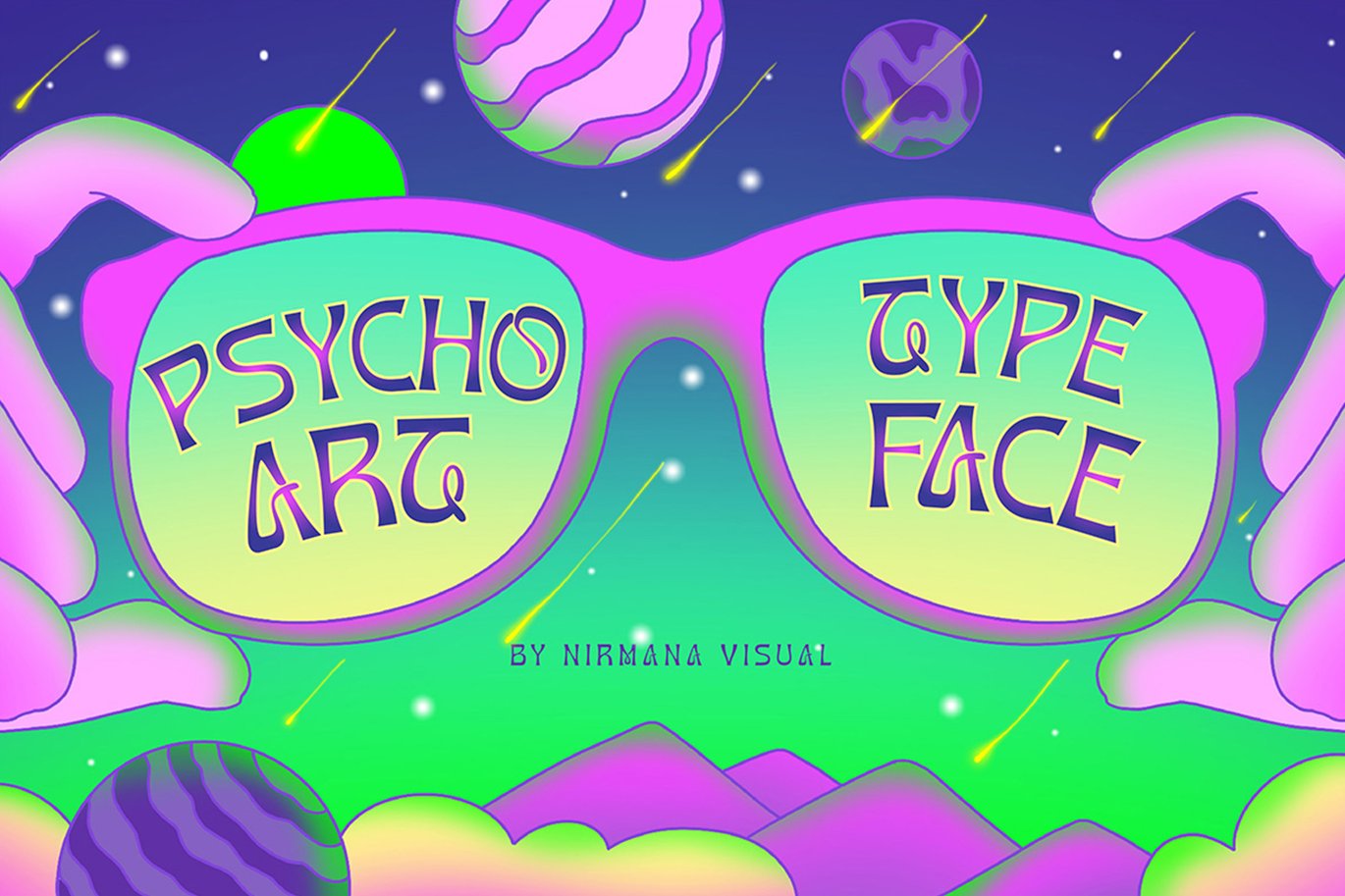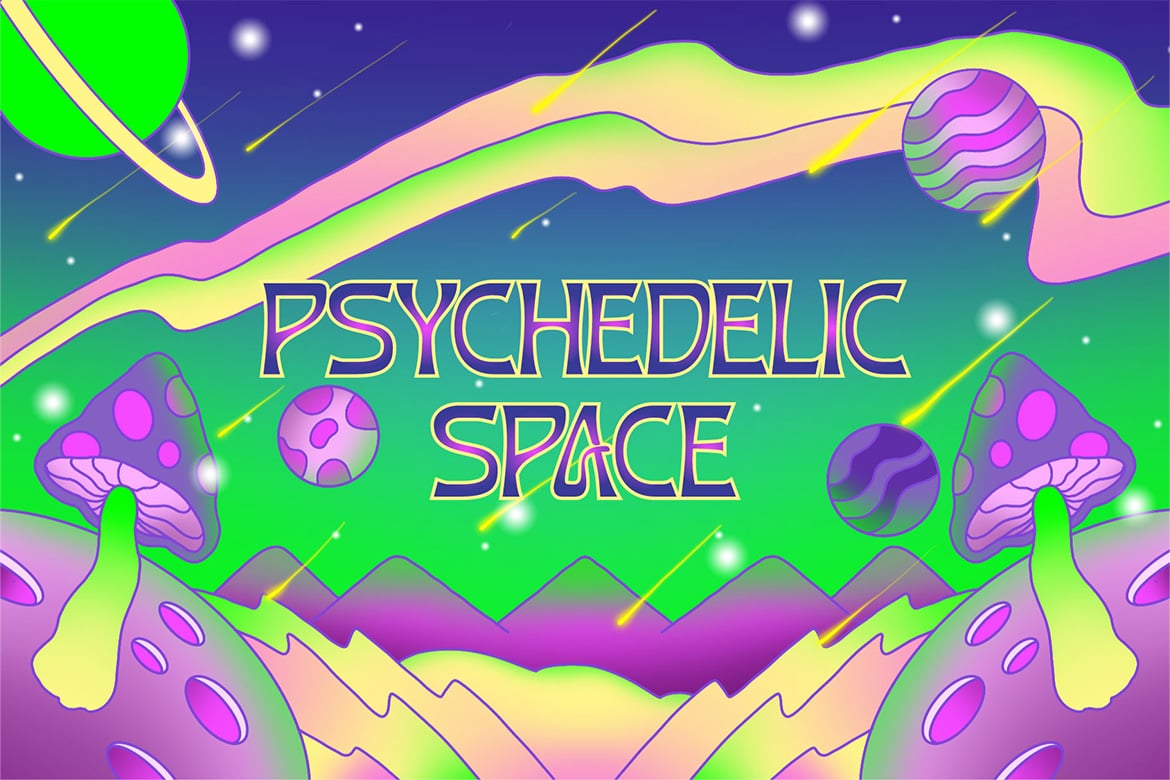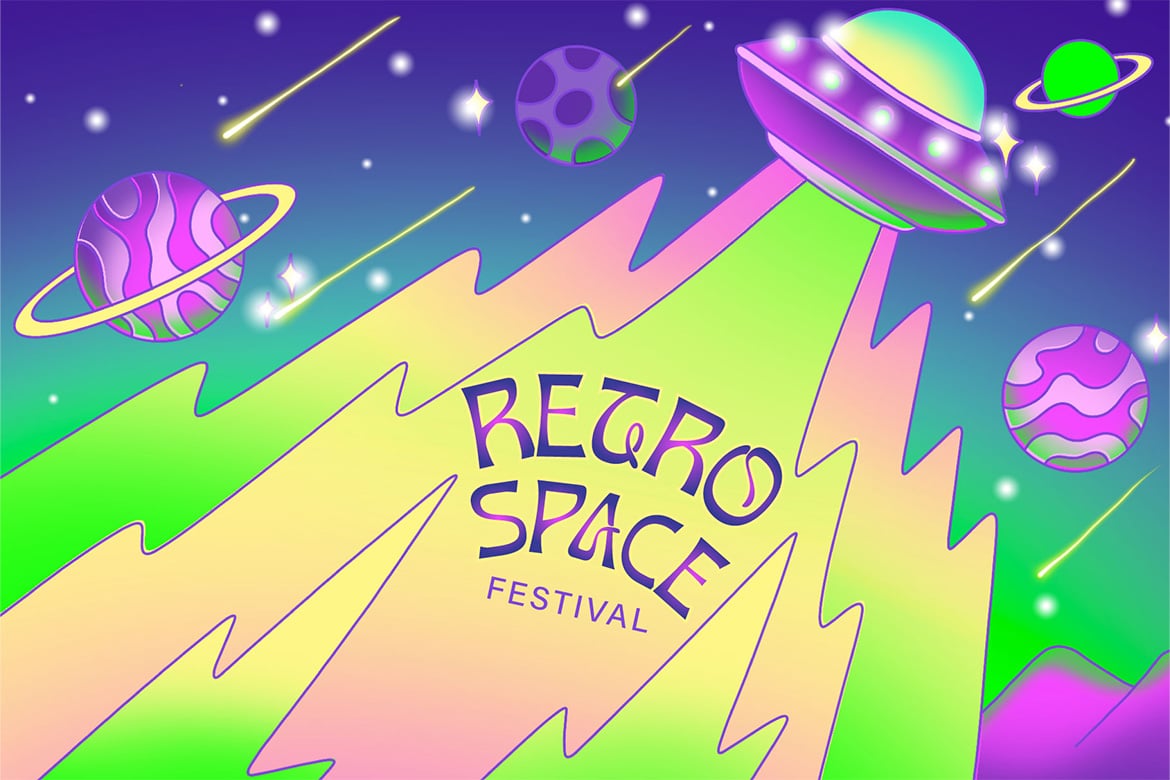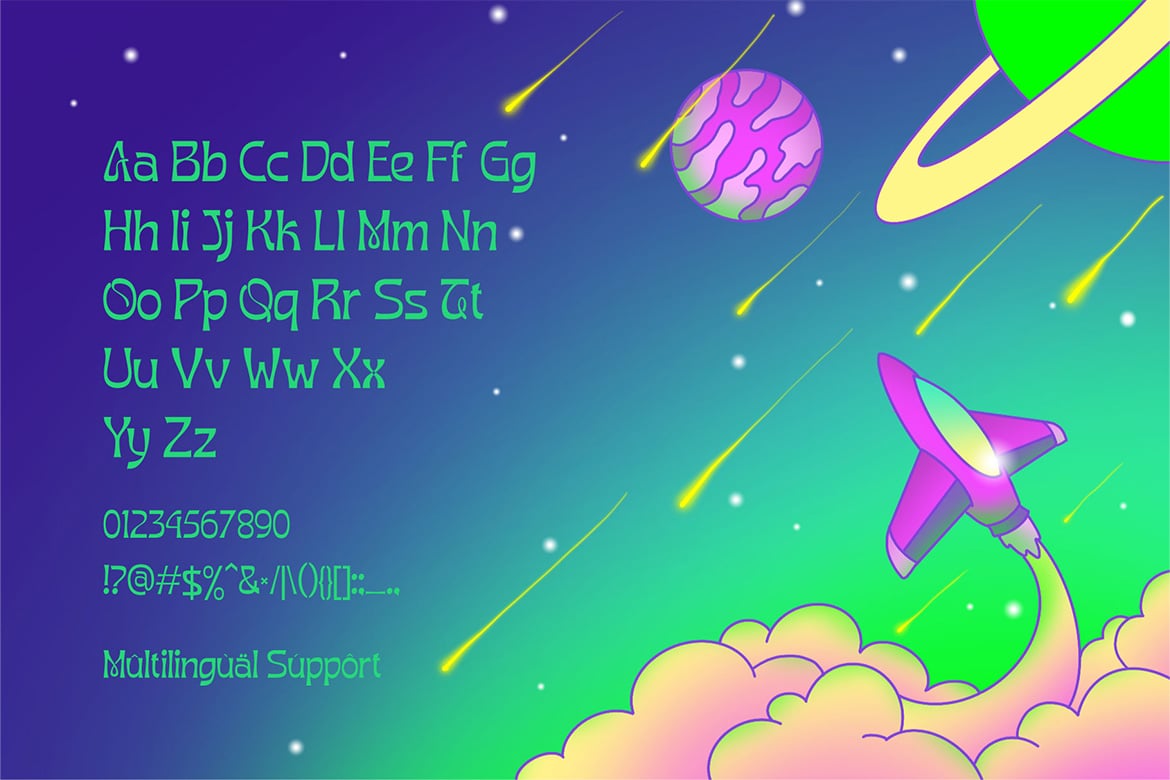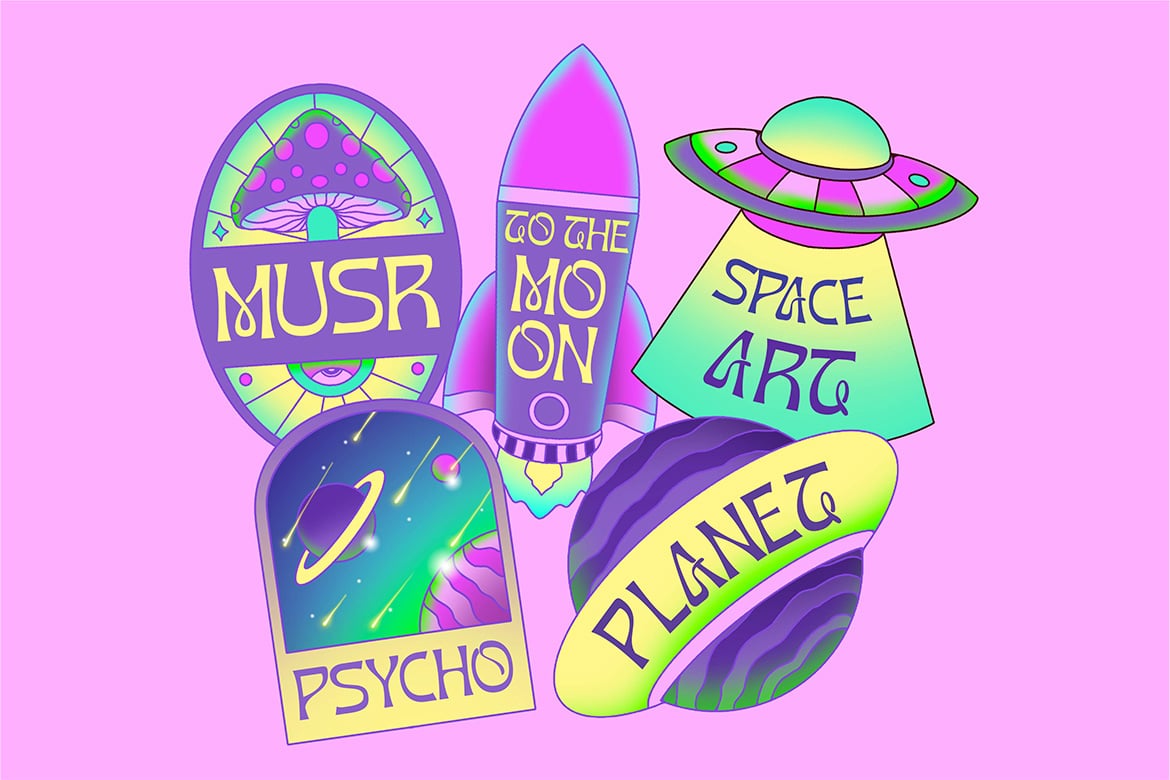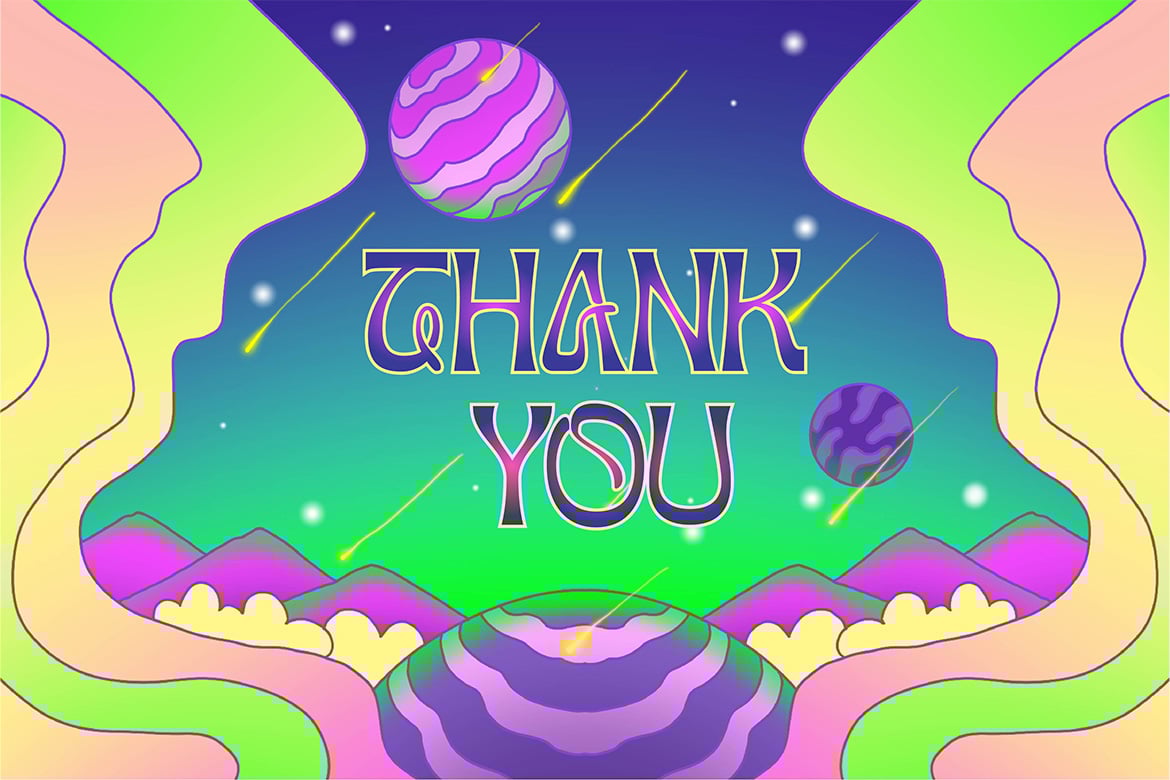
Psychoart Typeface – psychedelic font
Psychoart Typeface , contemporary of serif font, inspired by 1970’s era.
Psychoart offers beautiful typographic harmony for a diversity of design projects, including logos & branding,
social media posts, advertisements & product designs.